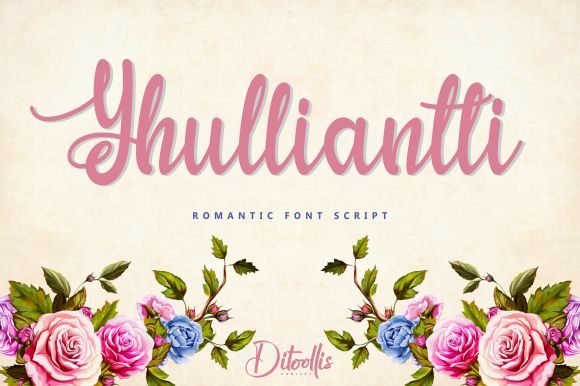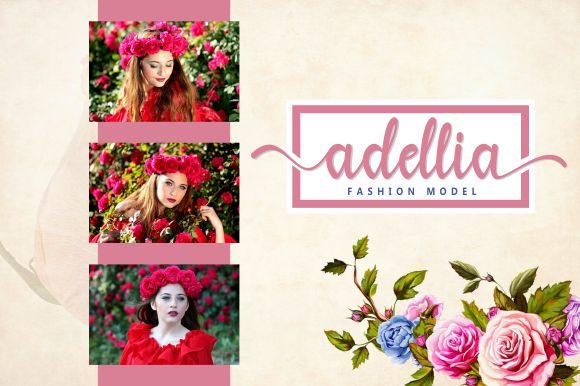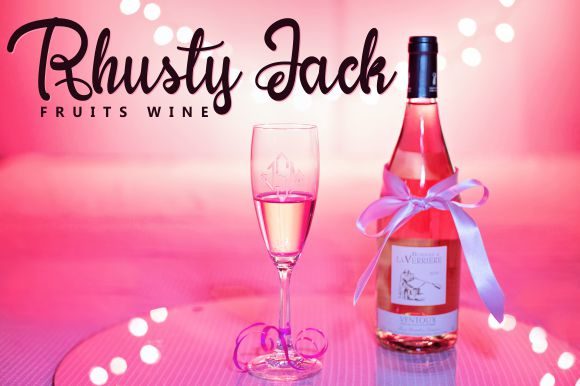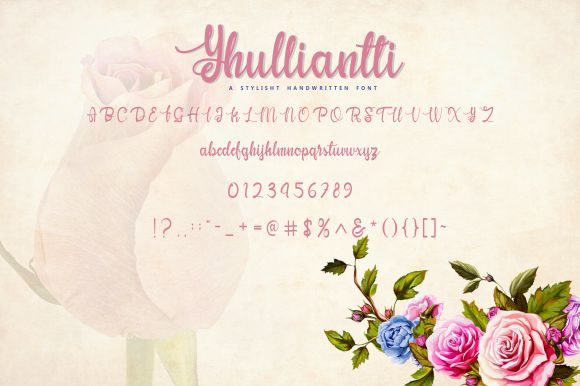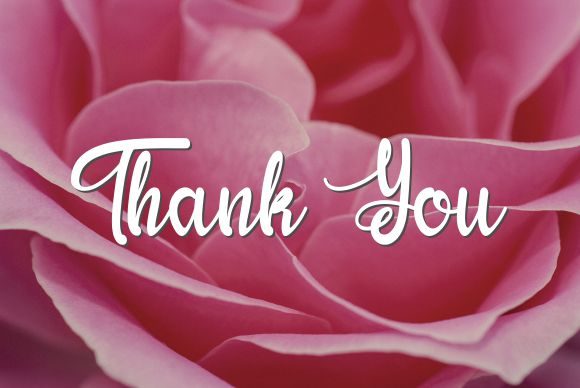
HomeScript FontsYhulliantti Font Script Fonts Yhulliantti Font FacebookXPinterestWhatsApp Yhulliantti Font Poster 2 Yhulliantti Font Poster 3 Yhulliantti Font Poster 4 Yhulliantti Font Poster 5 Yhulliantti Font Poster 6 About Yhulliantti Font Yhulliantti is a fresh, cute and adorable font that will effortlessly inspire any design project. DOWNLOAD NOW People also explored Magnolia Balmitha Font Skull Blood Font Now Simple Vontage Font Grey Cloud Font Stay Home Font Nighost Font Domain Font Handraw 266 0 TagsYhulliantti Font Previous articleLovely Jeanne Duo FontNext articleJacqueline Font LEAVE A REPLY Cancel reply Comment: Please enter your comment! Name:* Please enter your name here Email:* You have entered an incorrect email address! Please enter your email address here Website: Save my name, email, and website in this browser for the next time I comment. Personal Use Free Talking on Personal Use Free Read more about this font Zroest Personal Use Free Read more about this font Bashira Personal Use Free Read more about this font Angola Beach Personal Use Free Read more about this font BLOG Fonts That Capture the Spirit of New York City New York City is more than just a place—it’s an experience, a rhythm, a visual language... Best Fonts for T-Shirt Design – Top 2025 Picks Top 10 Handwritten Fonts That Elevate Your Designs Top 7 Google Fonts Alternatives for Faster and Privacy-Friendly Web Design (2025)